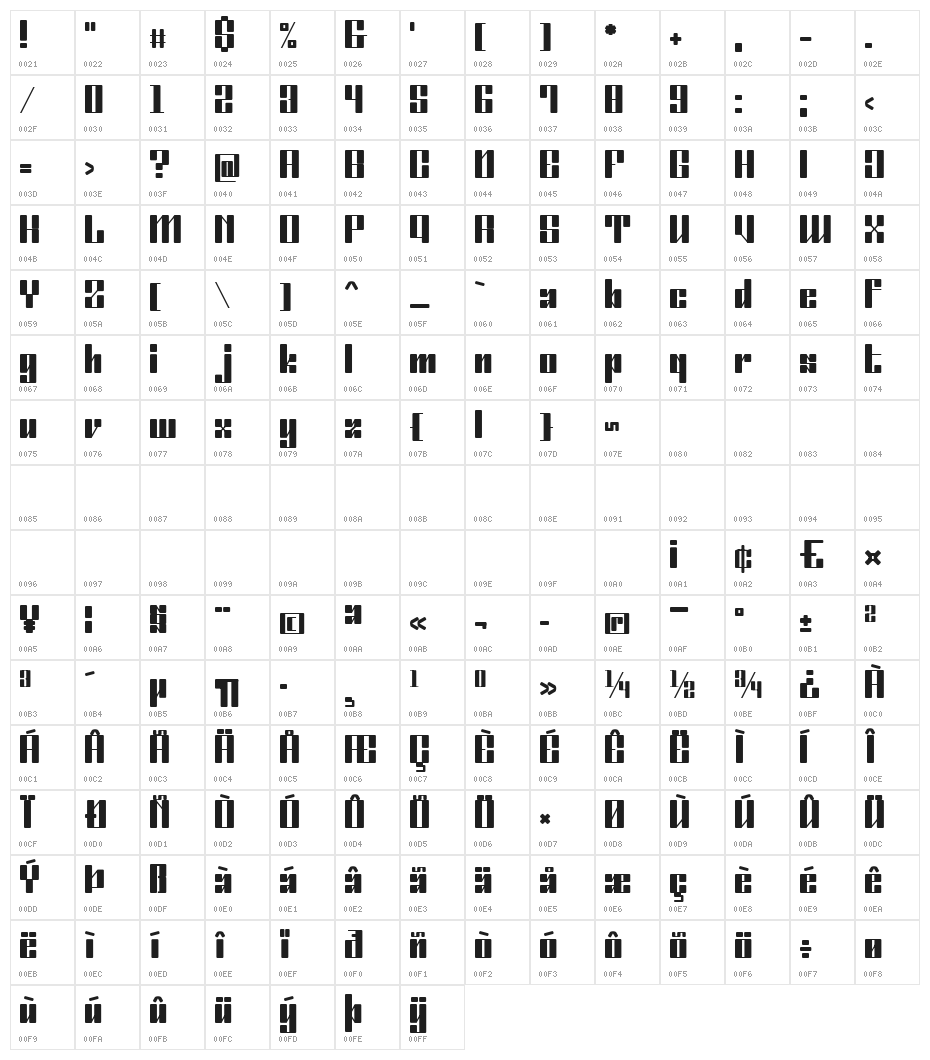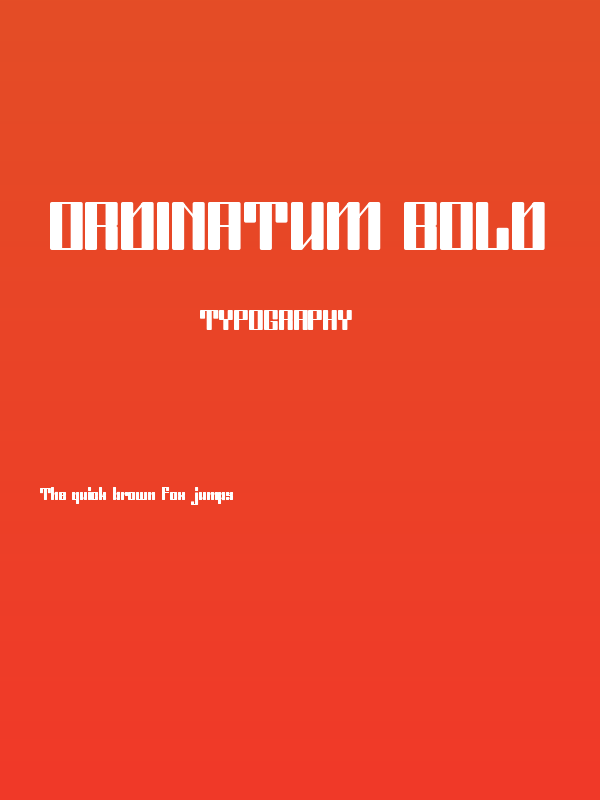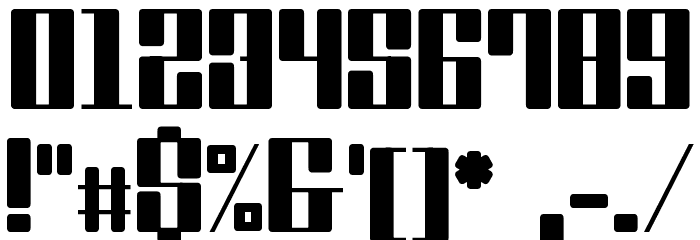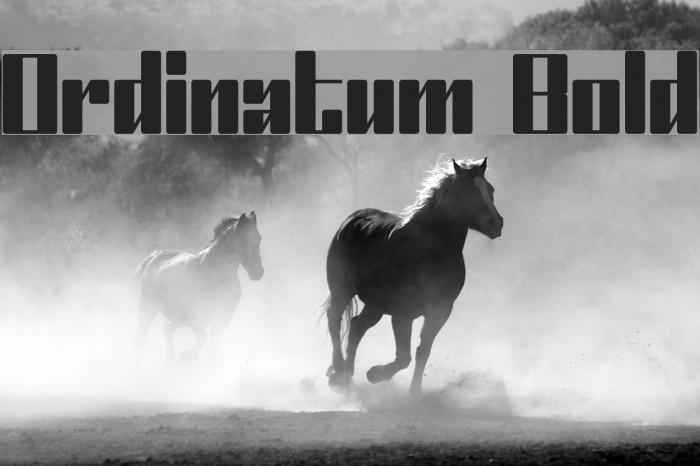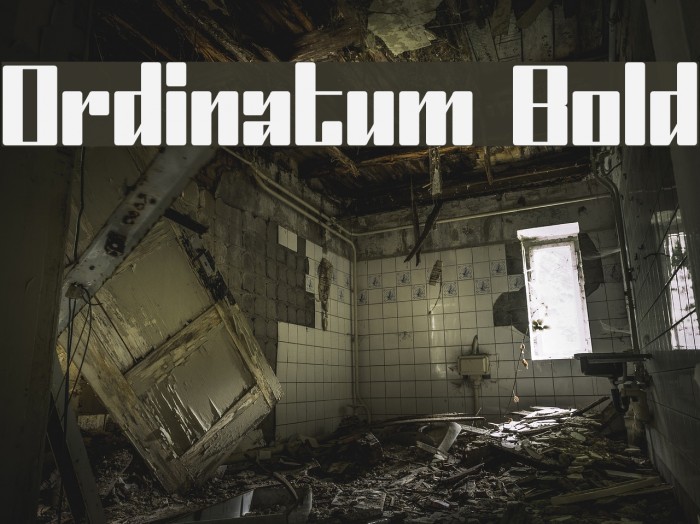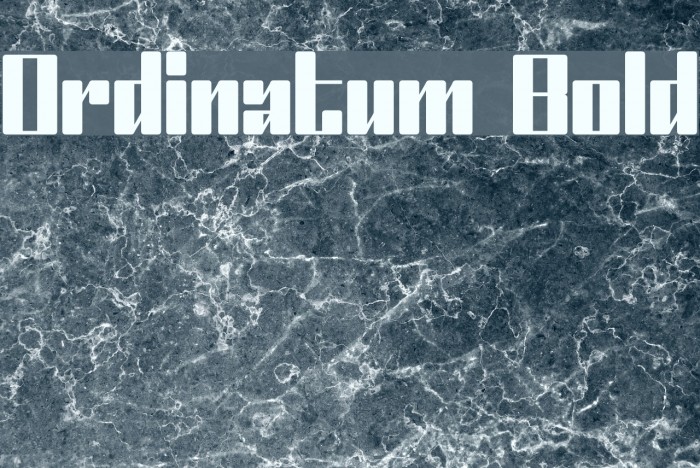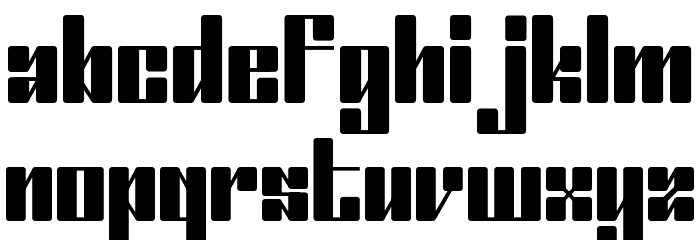
Ordinatum Bold Font
Ordinatum Bold Description
This bold and striking font features a geometric and blocky design, characterized by its thick, uniform strokes and sharp angles. The uppercase letters are particularly prominent, with a strong presence that commands attention. The lowercase letters maintain the same boldness, ensuring consistency throughout the typeface. Numbers and special characters are equally robust, making them ideal for impactful designs. The font's overall aesthetic is modern and assertive, suitable for projects that require a strong visual statement.
| Proposed Projects | Perfect for branding, posters, headlines, and any design that requires a bold statement. |